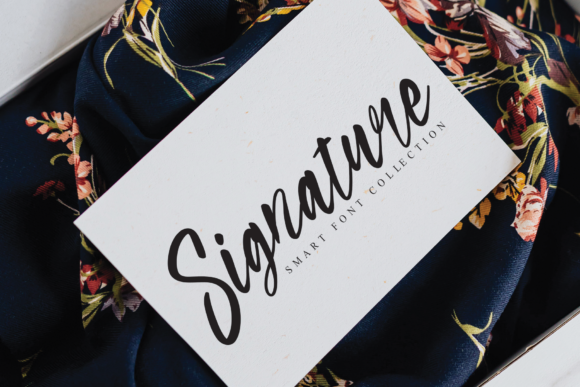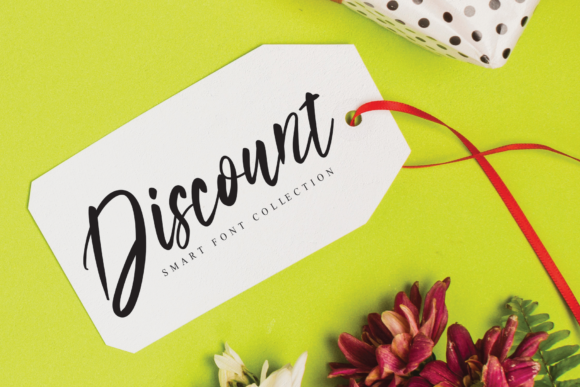
Handwriting Font
db-ku.com - Script & Handwritten -- Handwriting is a relaxed, natural and friendly handwritten font. Whatever the topic, this font will be a wonderful asset to your font library, as it has the potential to enhance any creation.